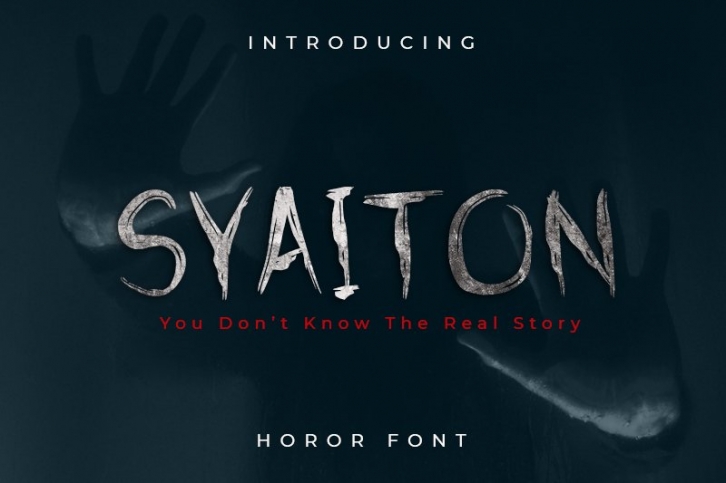
Syaiton is a beautiful font that was designed by Klakon Studio. It's a great choice for designers and creatives who need such a font. It was released on March 14, 2021 and the file size is 7.80 MB. Syaiton may give a more youthful, expressive and casual look to your project. It is a very beautiful, refined, elegant, and high-quality font.